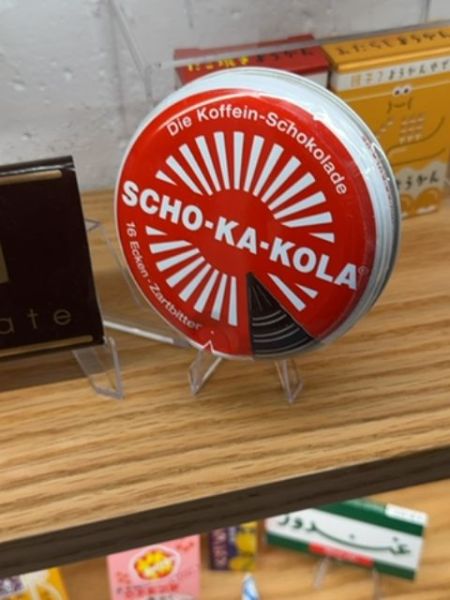
Scho-Ka-Kola
A caffeine-infused chocolate known for its stimulating properties, often consumed for energy boosts.
1935
Germany
The typography on the packaging uses a bold, sans-serif typeface that conveys a sense of energy and modernity. The letters are evenly spaced, with a clean and straightforward style, enhancing readability while complementing the vibrant design.
The packaging consists of a circular tin with a vibrant red background. It features a dynamic, radiating sunburst pattern, creating an eye-catching and energetic appearance.
- Scho-Ka-Kola was developed in 1935.
- It contains natural sources of caffeine from cocoa and coffee.
- Traditionally marketed as a performance-enhancing chocolate.